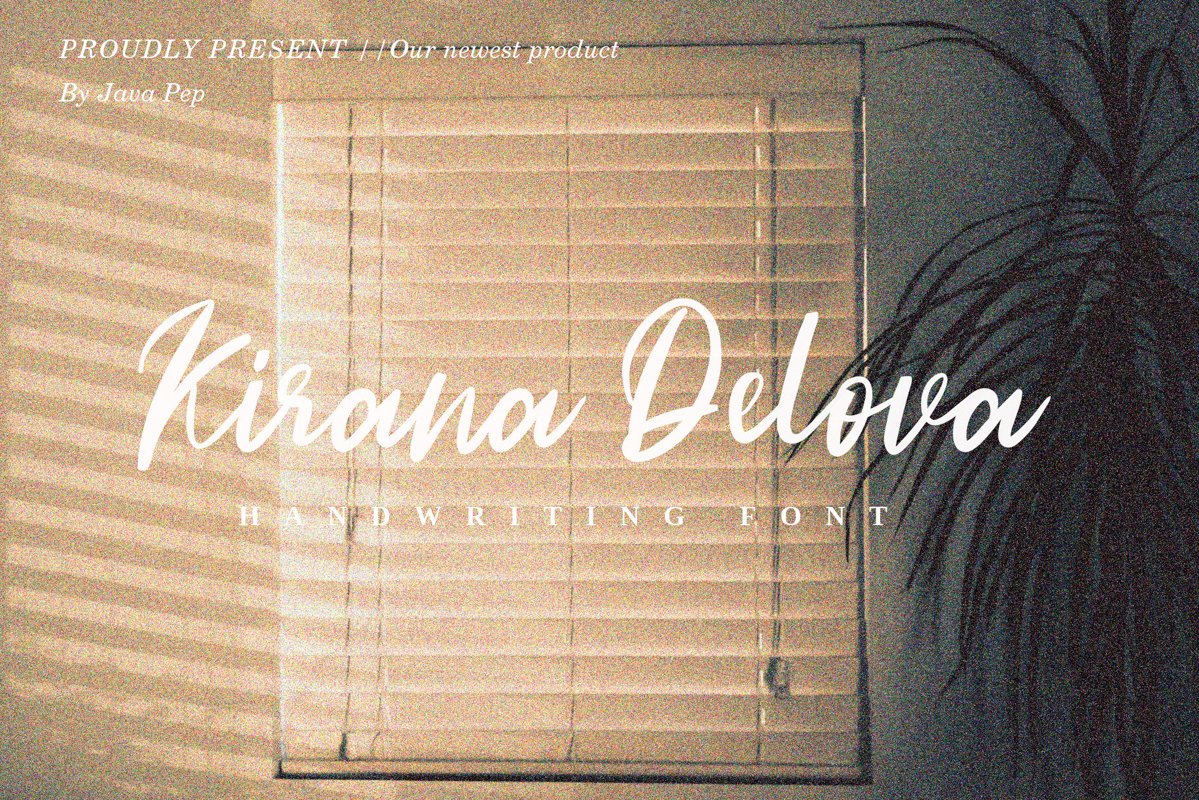
Kirana Delova
Introducing a pretty font called Kirana Delova. A Handwriting font that made by brushstroke, Kirana Delova equipped with multilingual that supports 17 languages.Kirana Delova also perfect for branding, magazine, greeting card, wedding invitation, and social media stories, etc. What you will get?
• Multilingual, support 17 languages ( Afrikaans, Albanian, Catalan, Danish, Dutch, English, Estonian, Finnish, French, German, Icelandic, Italian, Norwegian, Portuguese, Spanisch, Swedish, Zulu )